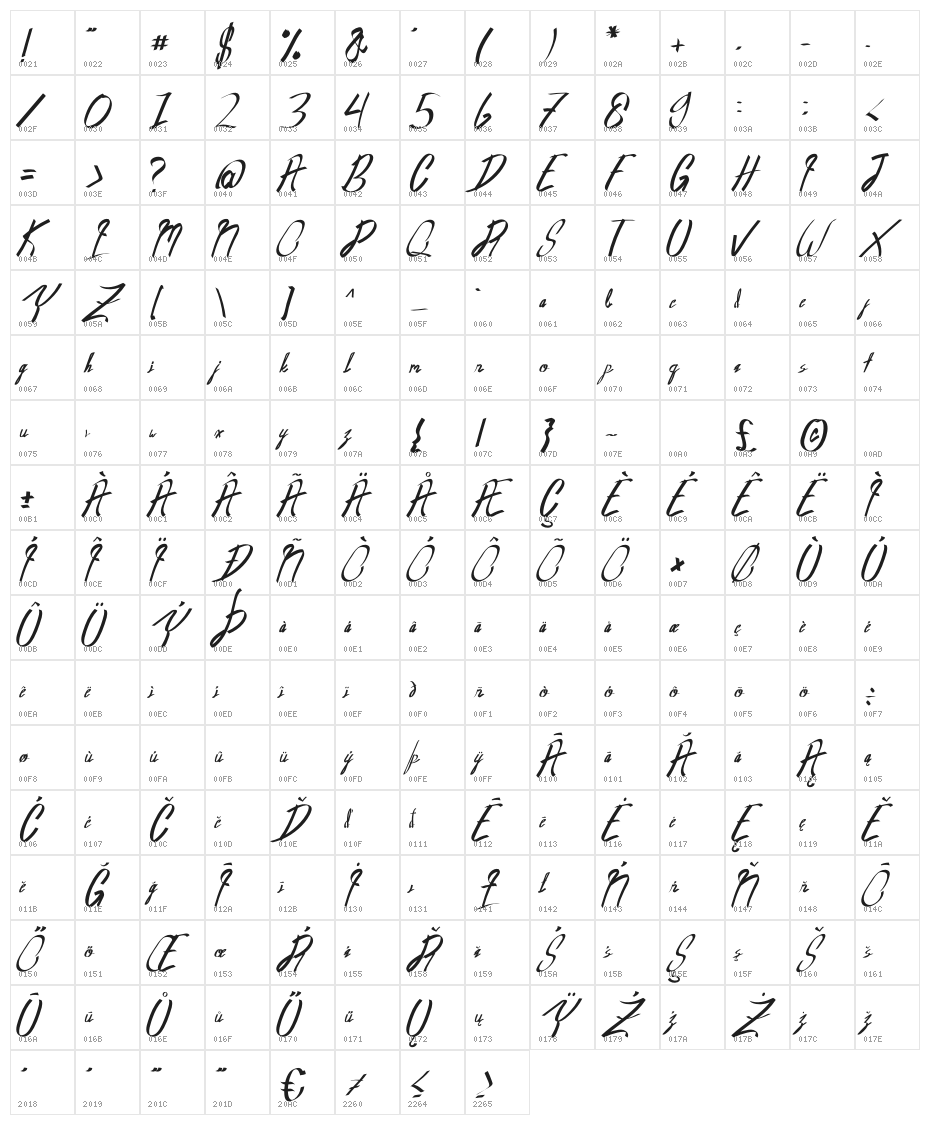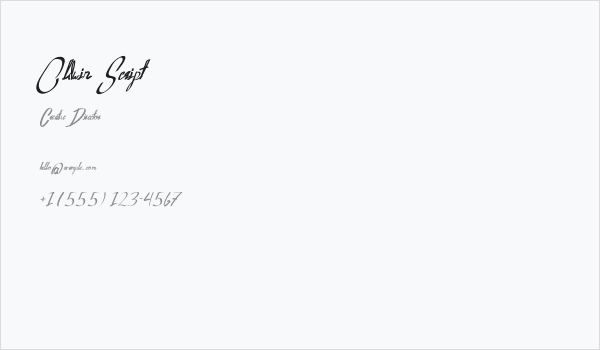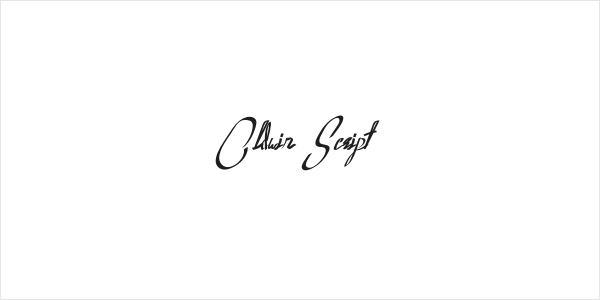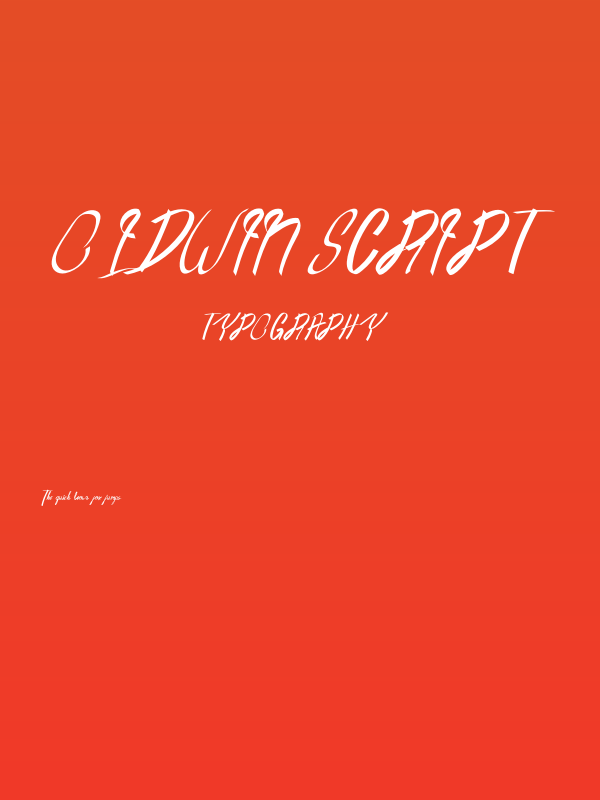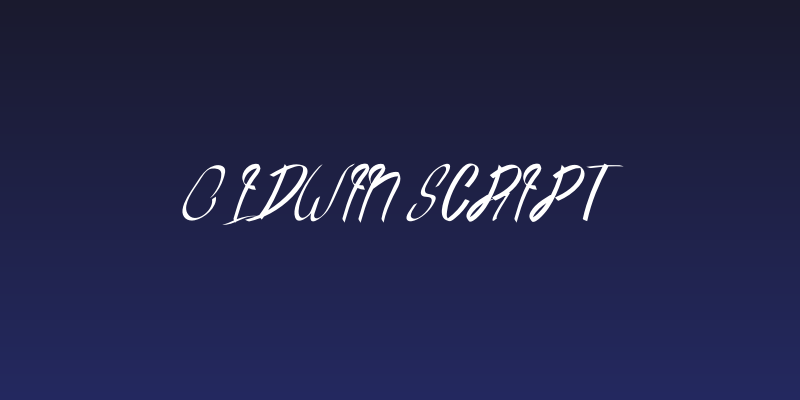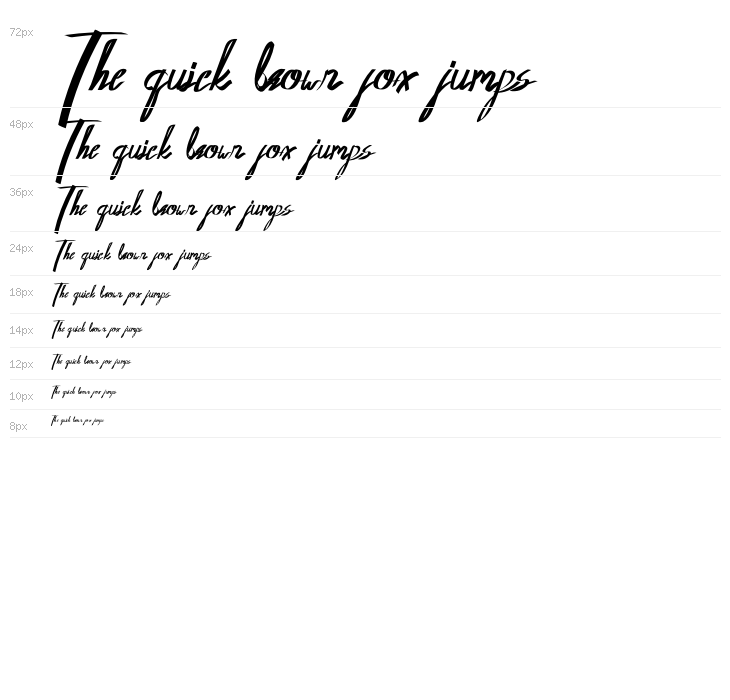
Oldwin Script Font
Oldwin Script Description
This script font exudes a dynamic and flowing elegance, characterized by its sweeping curves and fluid strokes. The uppercase letters are bold and expressive, with a slight slant that adds a sense of motion and grace. The lowercase letters maintain a consistent style, featuring elongated ascenders and descenders that enhance the font's overall fluidity. Numbers and special characters are crafted with the same attention to detail, ensuring a cohesive look across all elements. The font's high contrast between thick and thin strokes adds to its dramatic appeal, making it suitable for projects that require a touch of sophistication and flair.
| Overall Style | Elegant, Artistic |
| Use Case | Logos, Invitations, Artistic Posters |
| Proposed Projects | Ideal for wedding invitations, elegant branding, logo design, and artistic posters. |